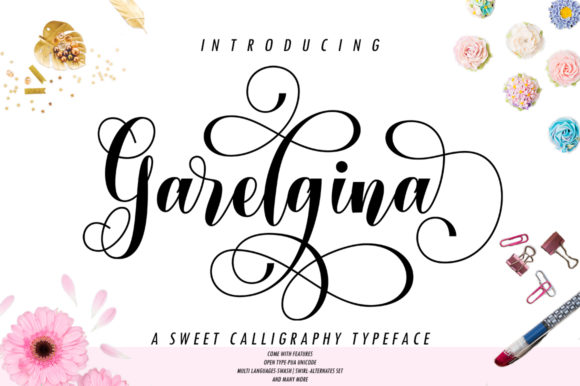
Welcome to the world of Garelgina, a script font that will set your designs ablaze with elegance and charm. Created by the talented minds at IRF Lab Studio, Garelgina is not just a font; it's an experience.
Imagine a font that dances across the screen, its lines flowing like the finest calligraphy. That's Garelgina, a font that will make your words come alive. Its varying baseline and smooth lines create a sense of movement and energy that is simply captivating.
But Garelgina is more than just beautiful; it's also incredibly versatile. Whether you're creating invitations, logos, social media posts, or anything in between, Garelgina will add a touch of sophistication and style to your work.
And with its PUA encoding, you can access all of Garelgina's glyphs and swashes with ease. This means endless possibilities for customization, so you can create designs that are truly unique.